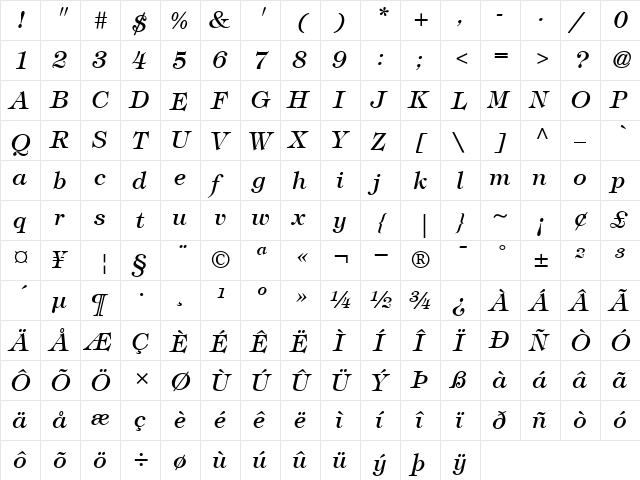
ITCTiffany-Medium MediumItalic
Design Context for ITCTiffany-Medium Typeface
ITCTiffany-Medium takes a measured approach to typography — its balanced proportions and neutral character make it a reliable workhorse for both digital and print work. The slanted form adds forward momentum and visual energy.
Pro Tip: Try ITCTiffany-Medium for annotation and caption copy alongside an upright companion — the contrast in angle creates a dynamic but ordered typographic system.